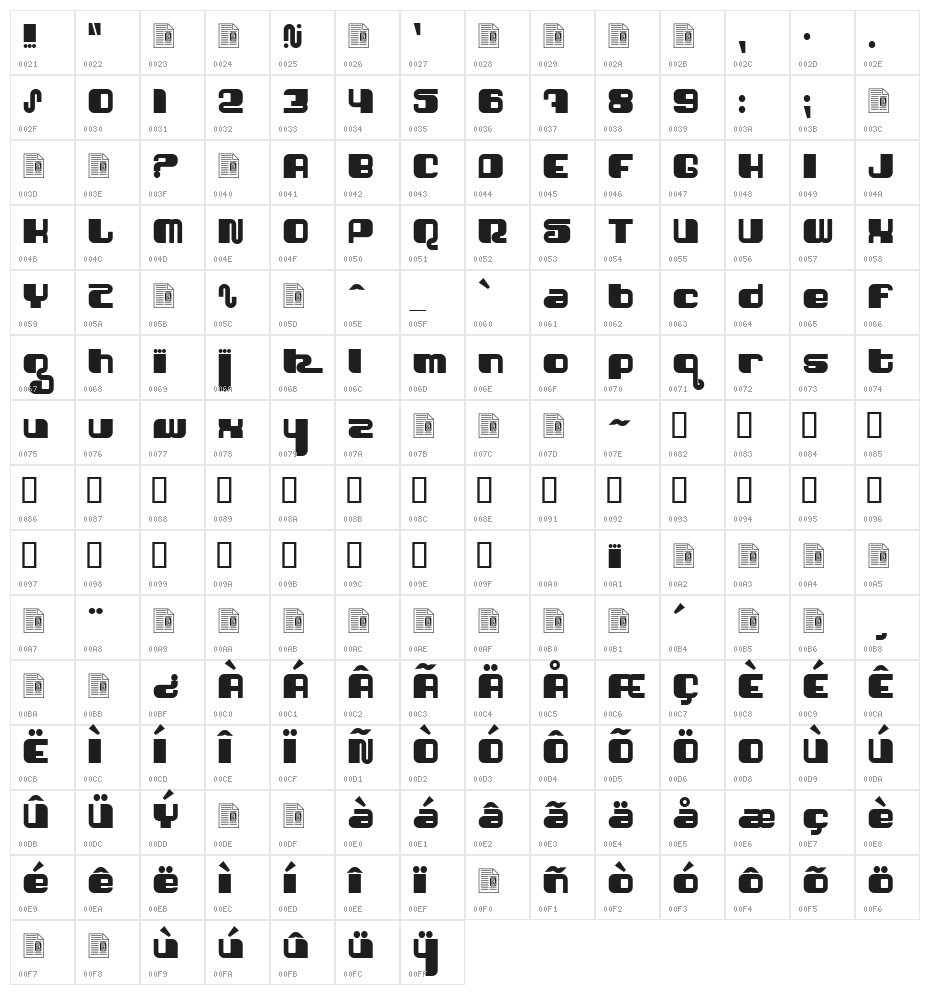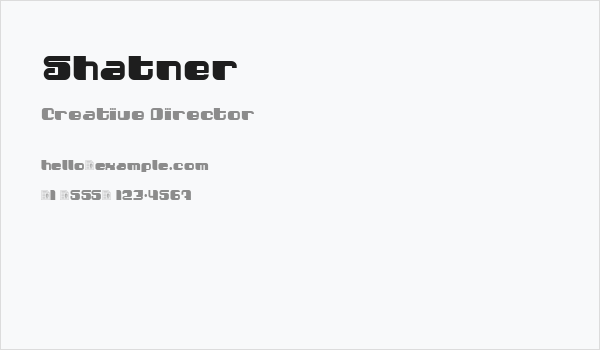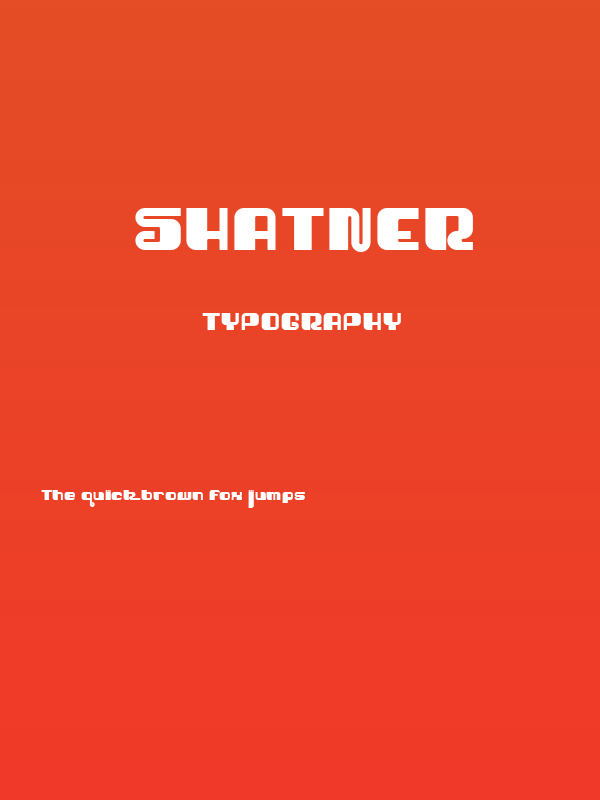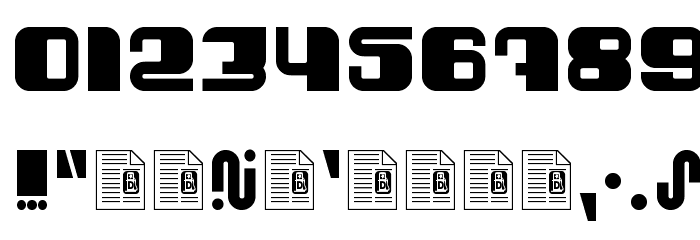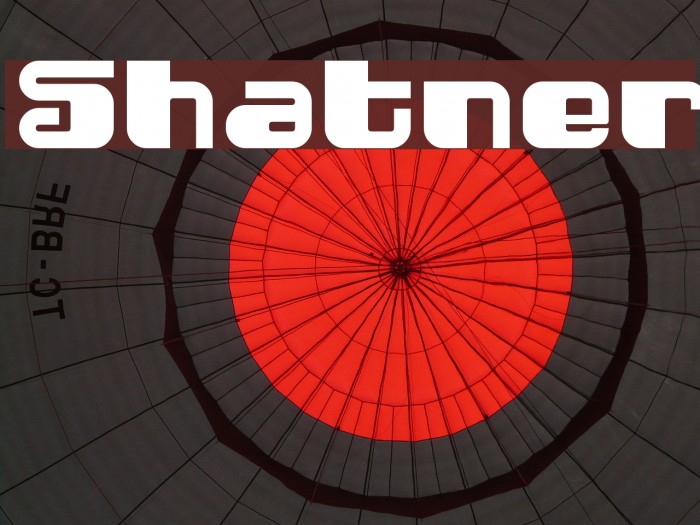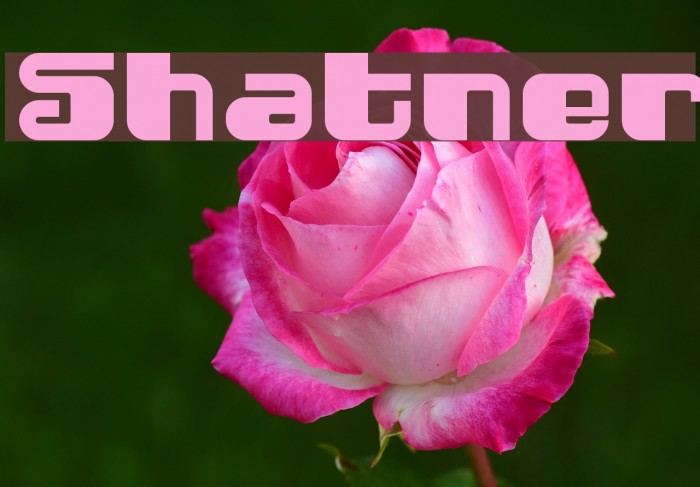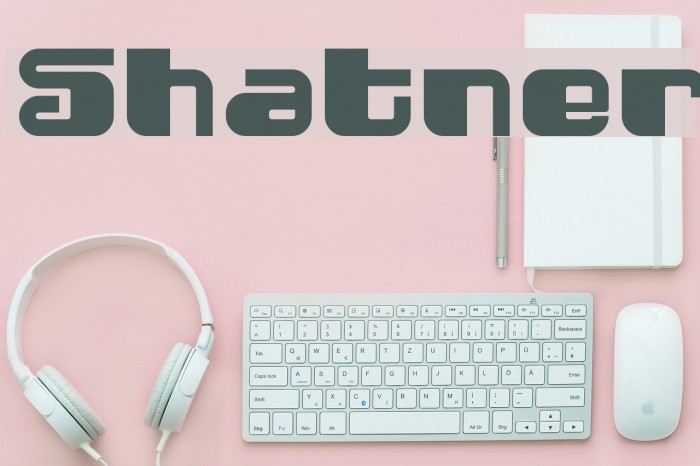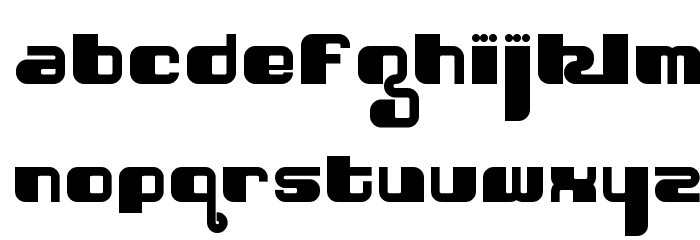
Shatner Font
Shatner Description
This font features a bold and striking design with a modern twist. The characters are blocky and robust, with a strong presence that makes them ideal for attention-grabbing headlines. The uppercase letters are particularly wide and have a geometric feel, while the lowercase letters maintain a consistent style with a slightly softer edge. The numbers are equally bold, ensuring they stand out in any context. Special characters are designed to match the overall aesthetic, providing a cohesive look across all text elements. This font is perfect for projects that require a strong visual impact.